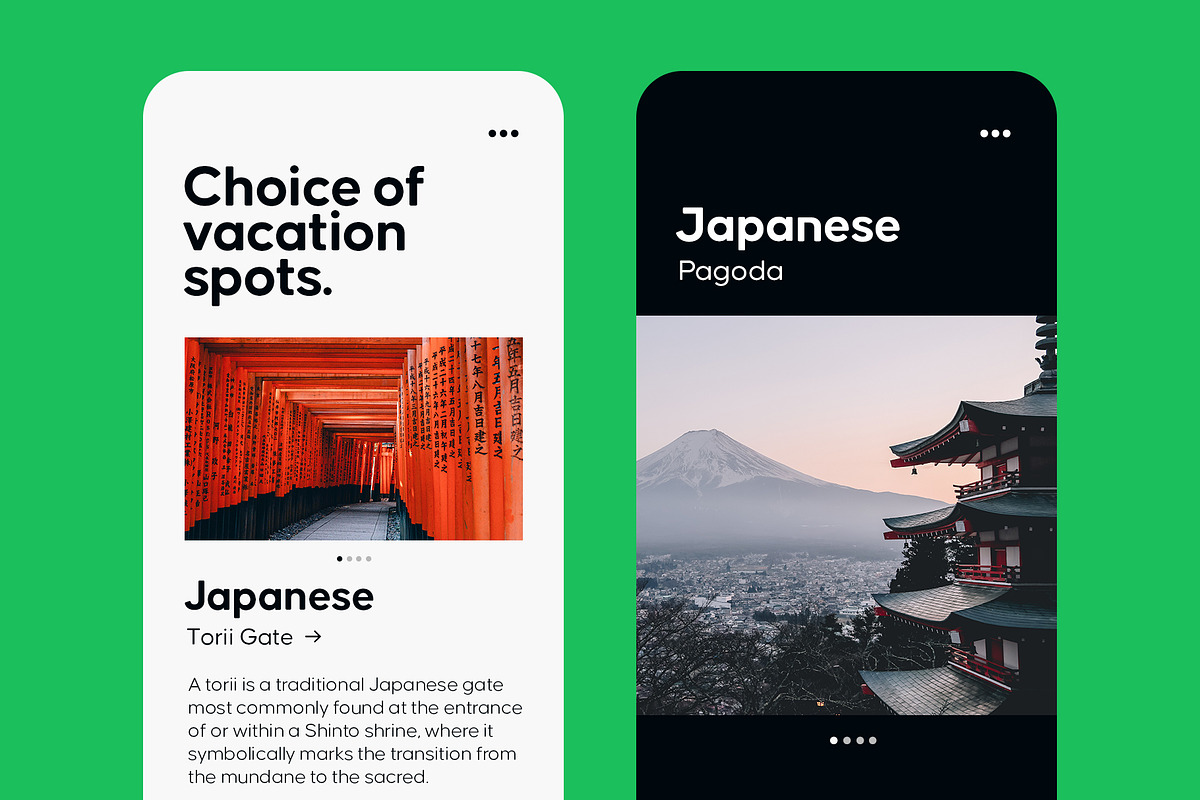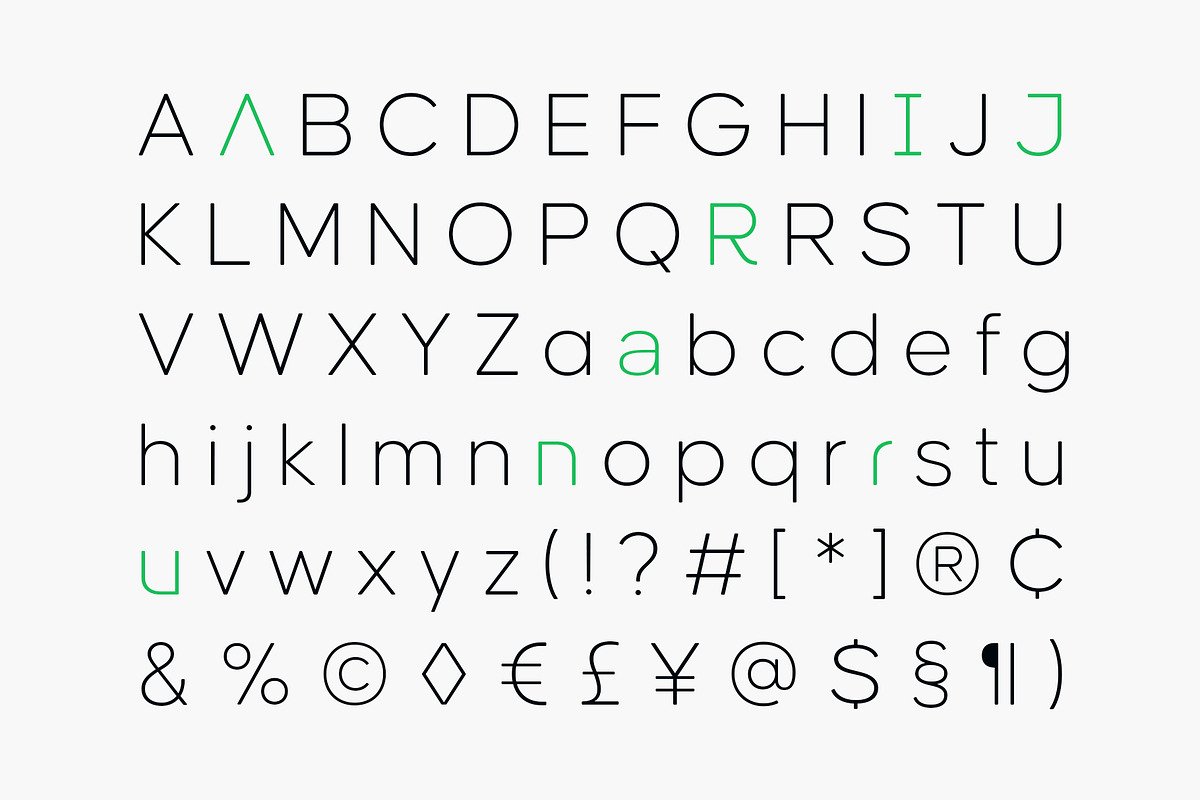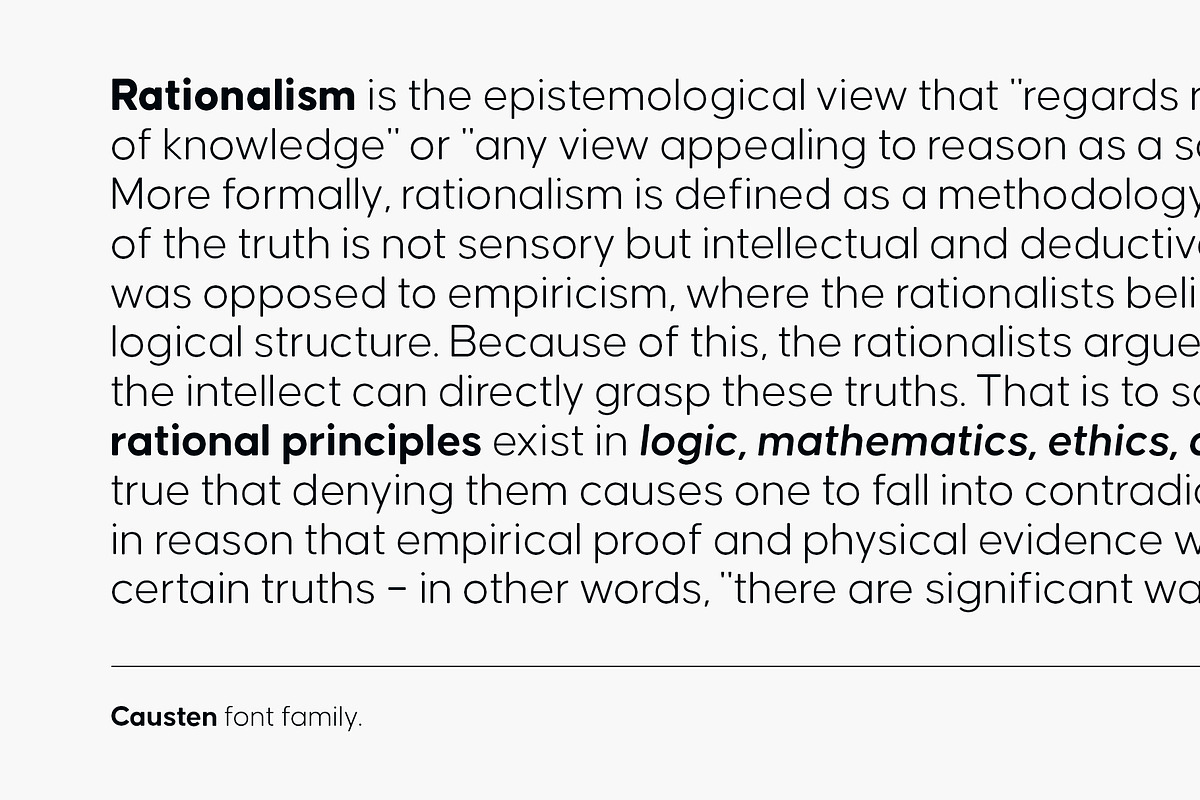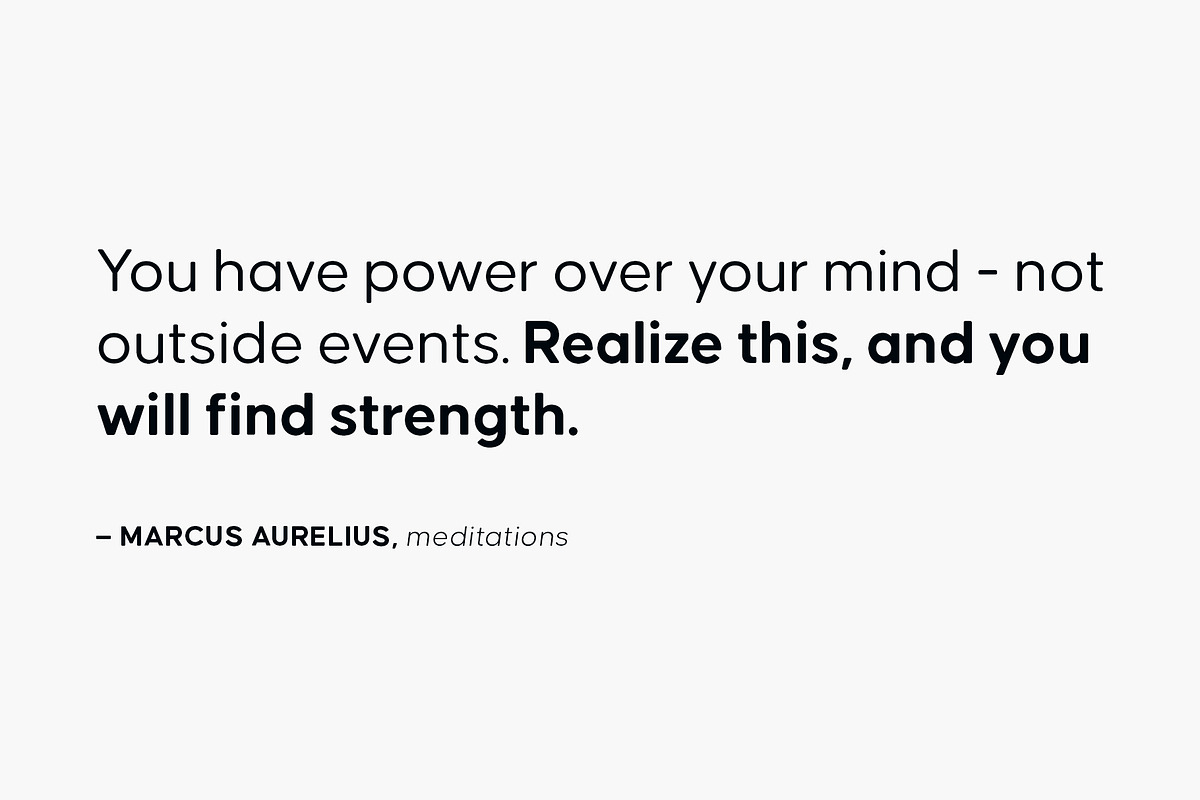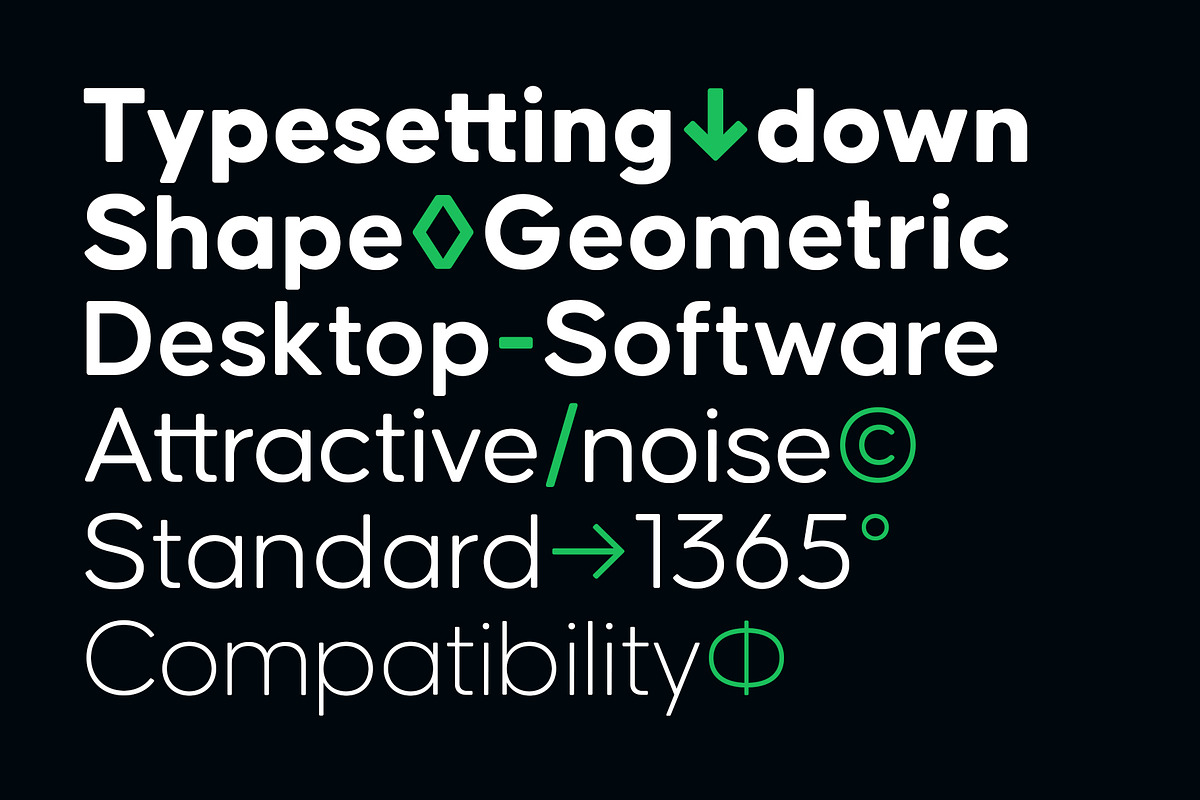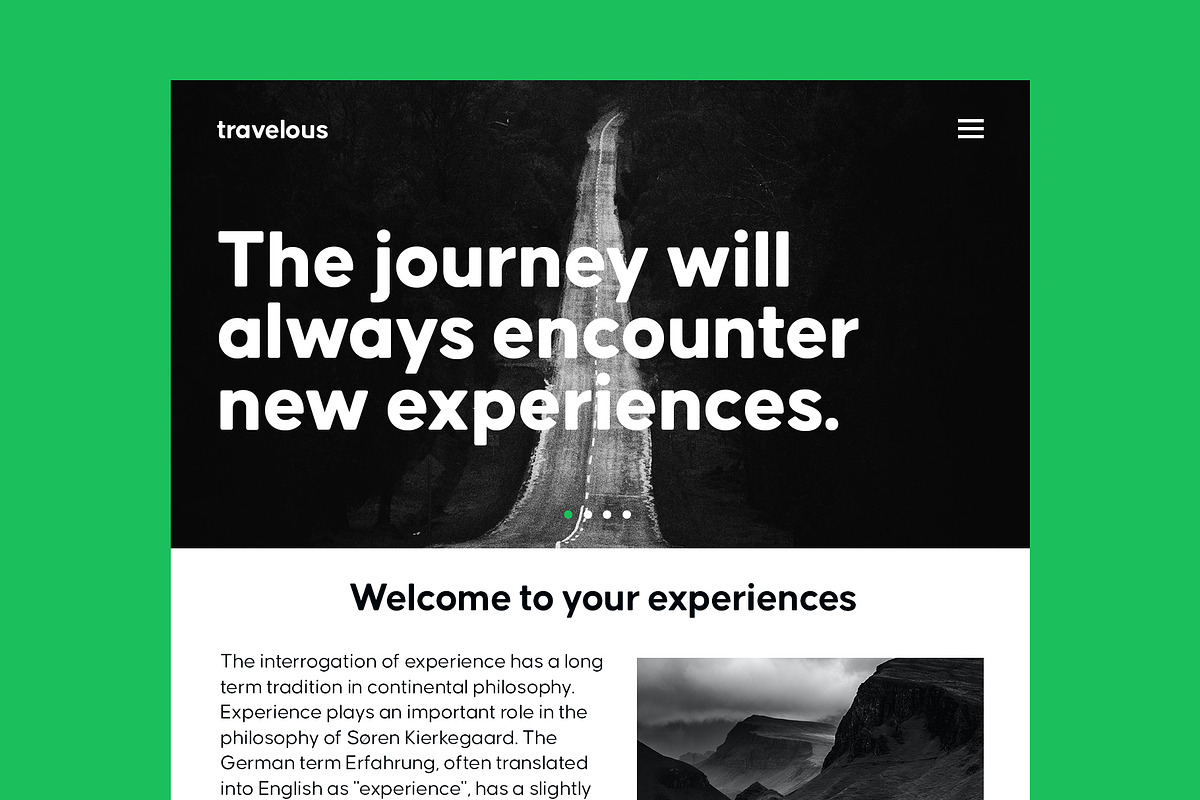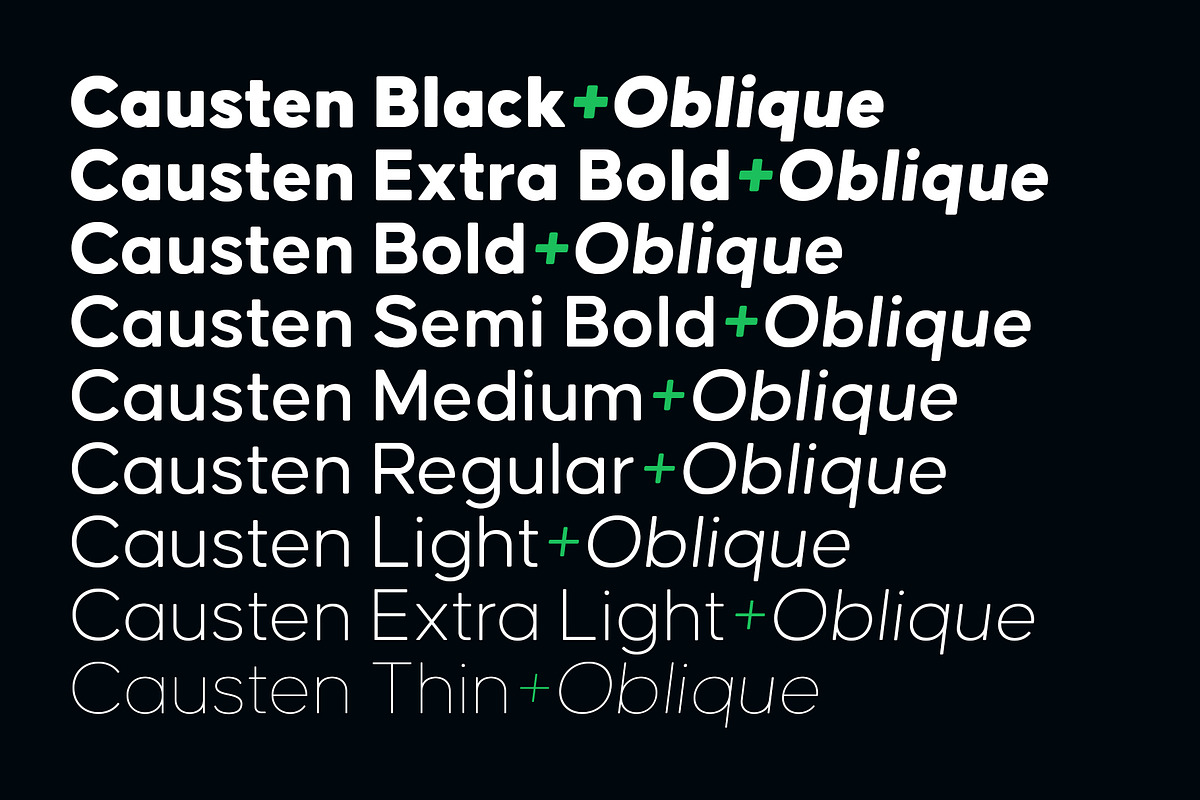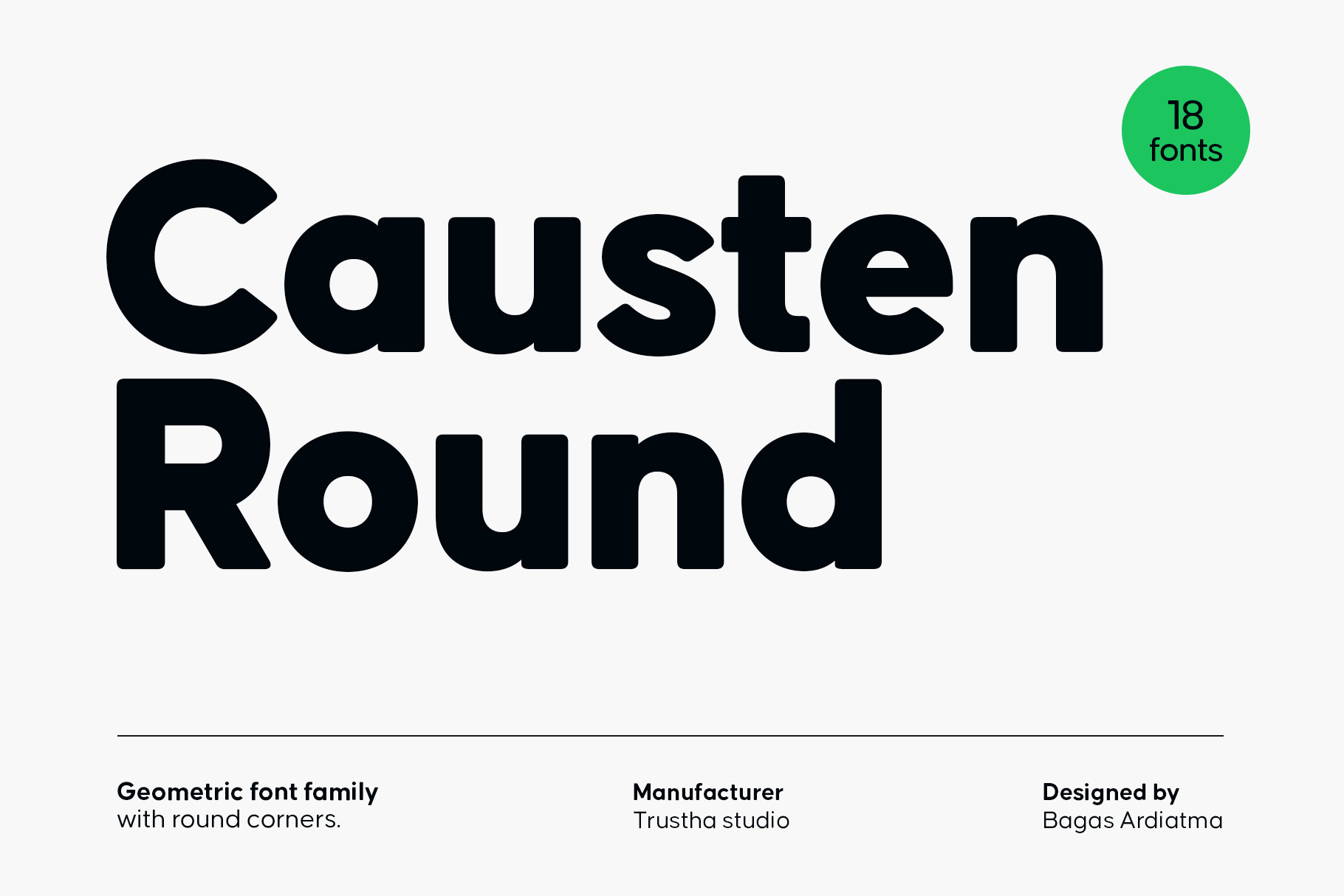
Causten Round Font Family
Causten Round is a geometric sans serif font family with round corners and maintains rationality in designing each form. With use the sharpness of the eyes, and remain logical, so that balance is maintained in each form. So, it will get a clean, neat, and perfect shape.
Causten Round comes with 9 weights and a matching oblique, making it 18 styles. It makes it perfect for all creative projects. Also, some alternative glyphs will be an attractive choice.
- Punctuation & symbols
- Stylistic Set
- International characters (Multilingual)
- And more